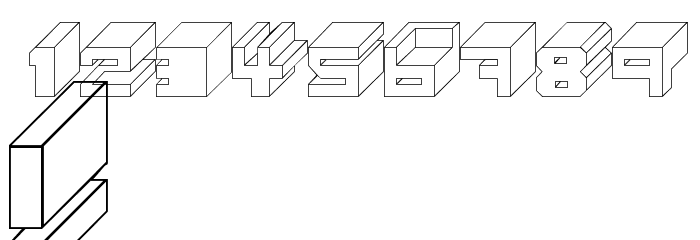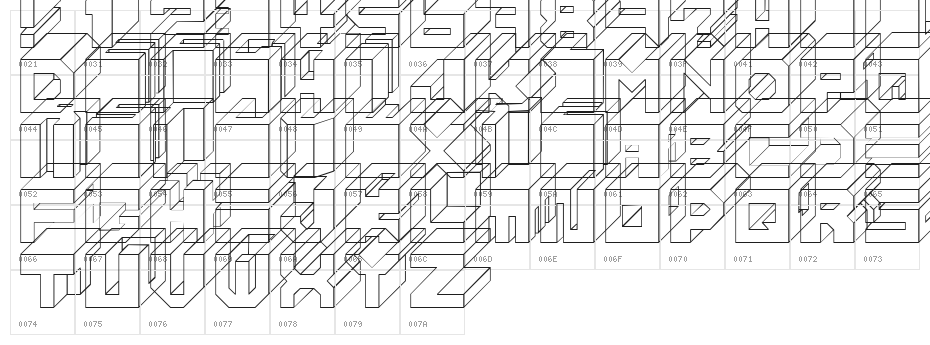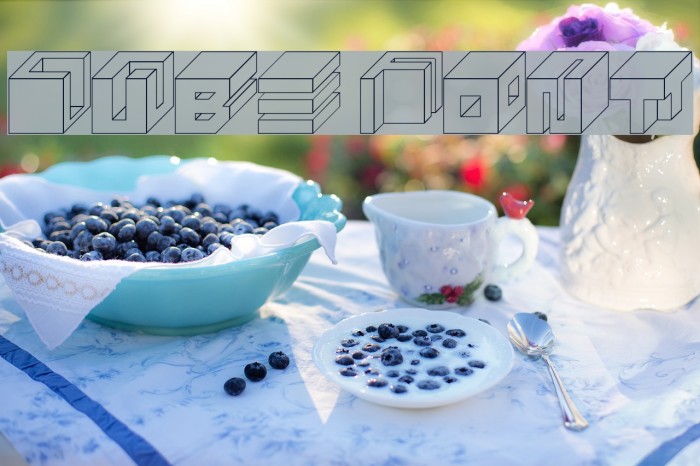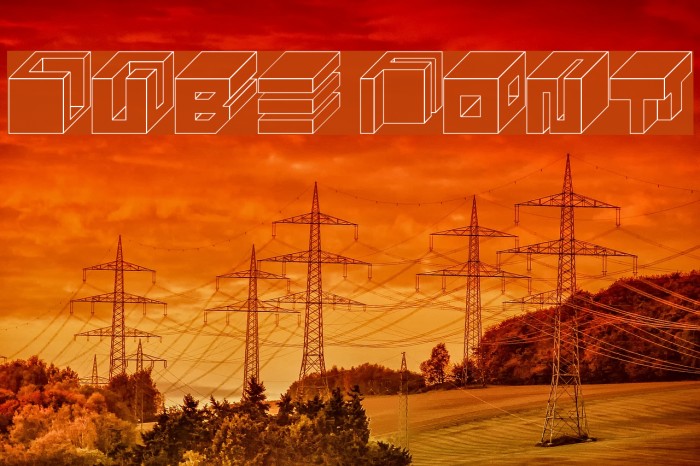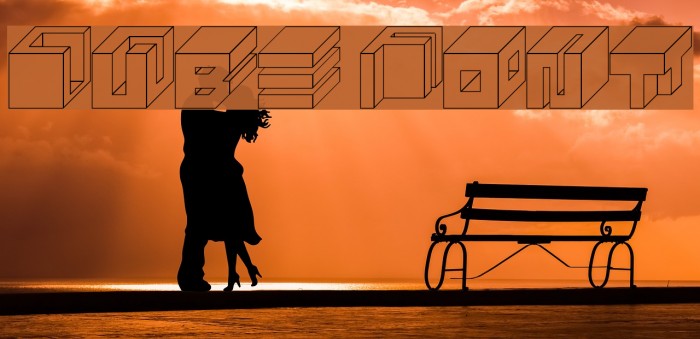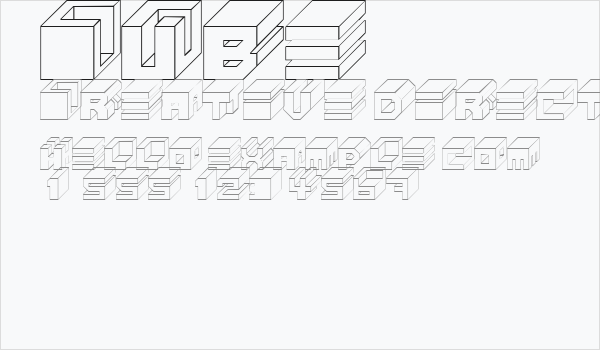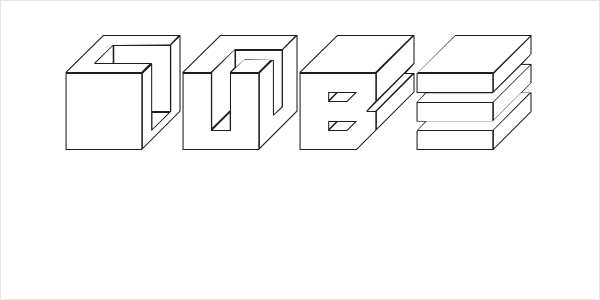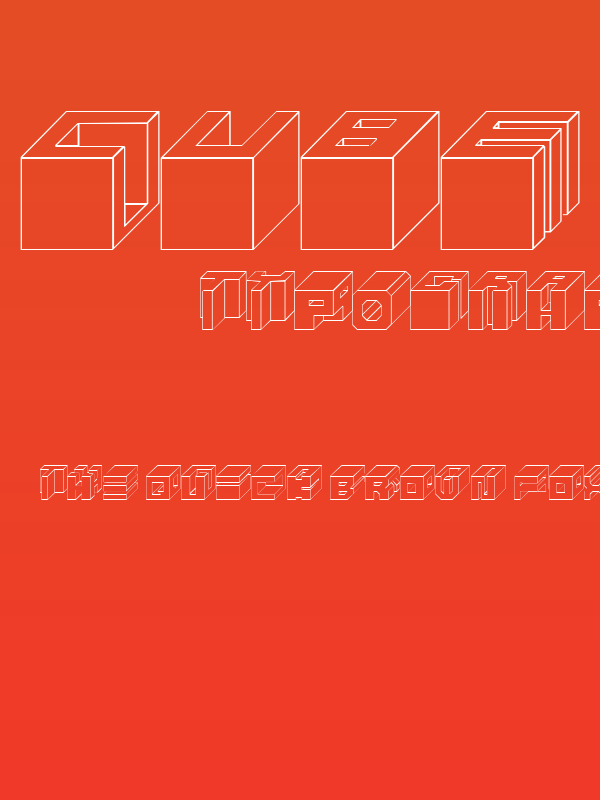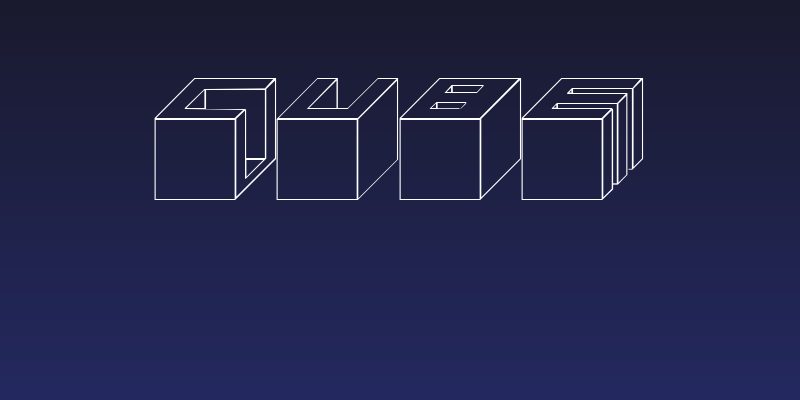
Cube Font
Cube Description
This font features a unique 3D cube design, where each character is constructed to appear as if it is emerging from a cube. The lines are clean and geometric, giving a modern and structured appearance. The characters are bold and have a strong presence, making them ideal for attention-grabbing designs. The font's three-dimensional aspect adds depth and interest, making it stand out in any project. The style is consistent across uppercase, lowercase, and numeric characters, maintaining the cube motif throughout. This font is particularly suitable for projects that require a futuristic or tech-inspired aesthetic.
| Proposed Projects | Ideal for futuristic branding, tech-related designs, posters, and video game graphics. |